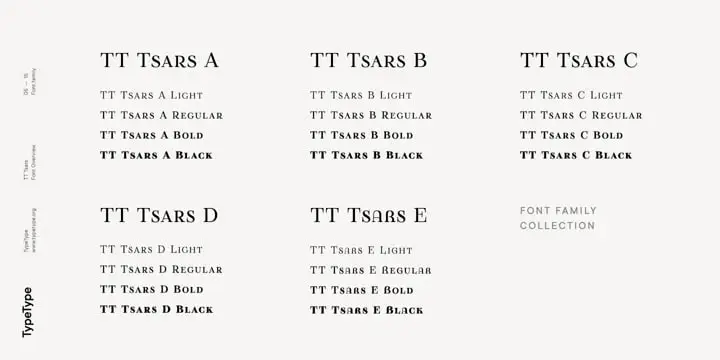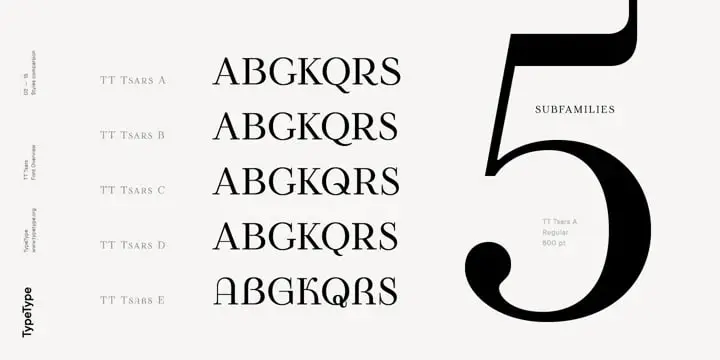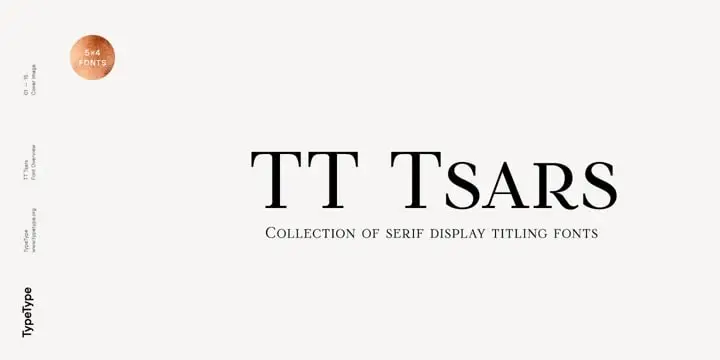
The Tt Tsars Font Family is a versatile typeface designed by Typetype, featuring an extensive range of styles that cater to both Latin and Cyrillic scripts. This font family is perfect for a variety of applications, including branding, logos, web design, and print materials.
- Multiple weights and styles for creative flexibility
- Extended Latin and Cyrillic support for diverse language use
- High-quality outlines for crisp rendering in digital and print formats
- Stylish and modern design suitable for various projects
- Weights: Light, Regular, Bold, and more
- Styles: Italic options available
- Utilize different weights for hierarchy in your designs
- Combine styles for unique branding elements